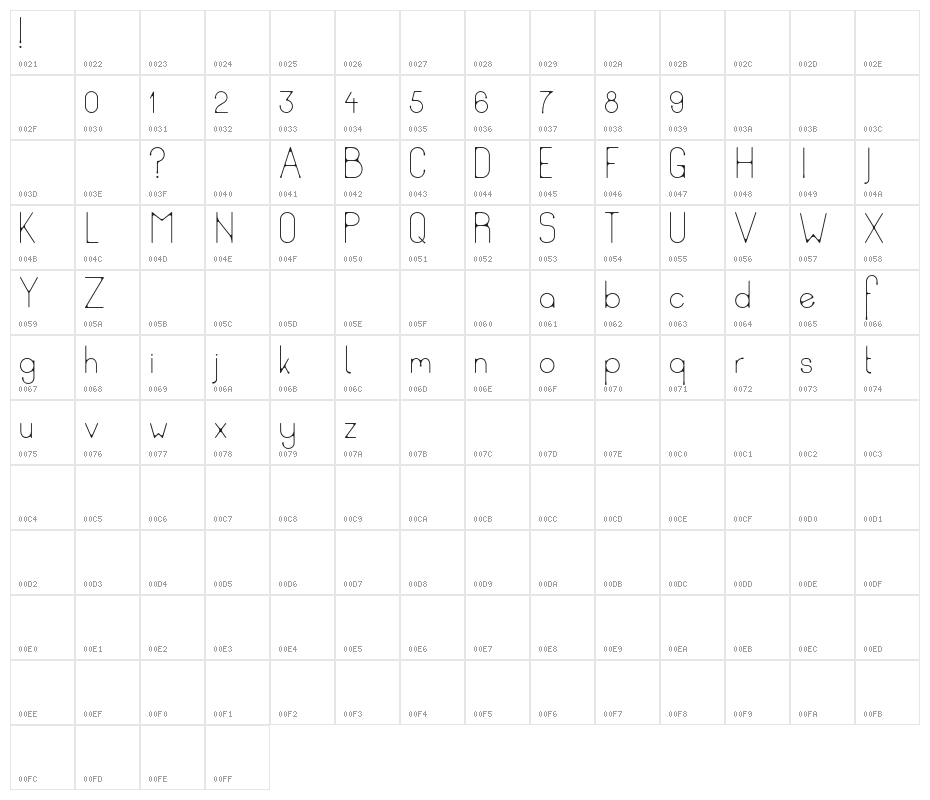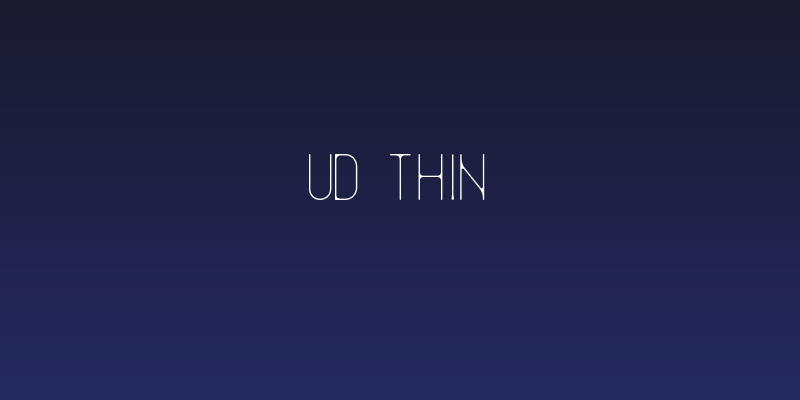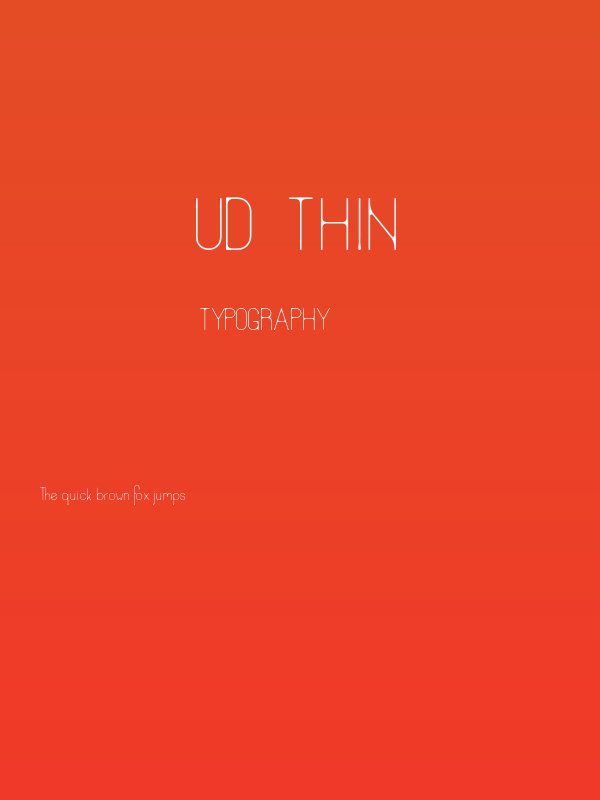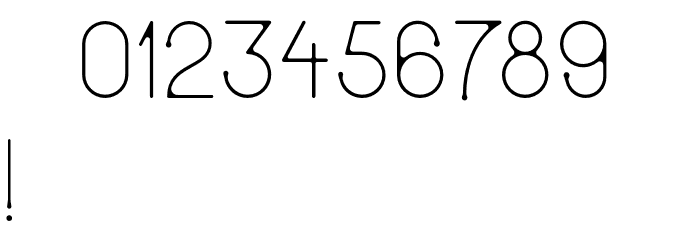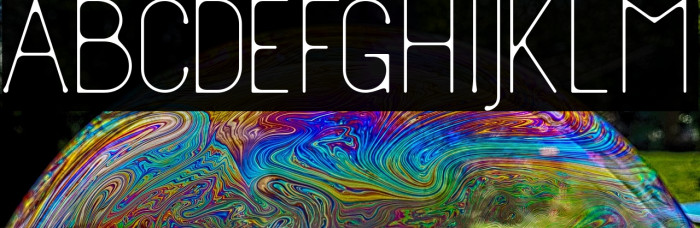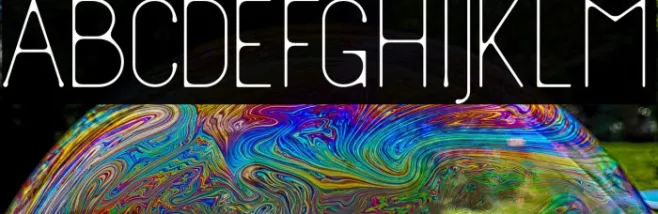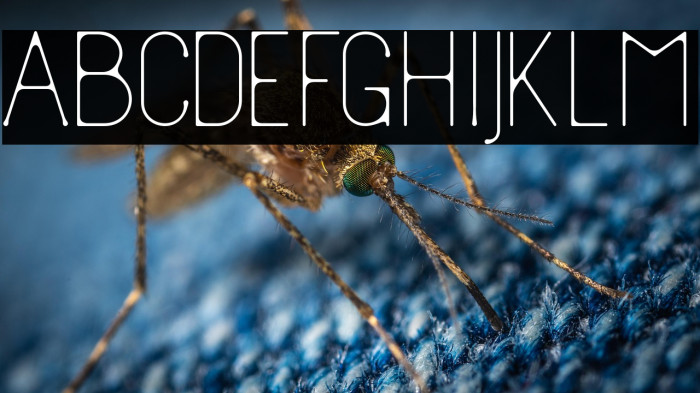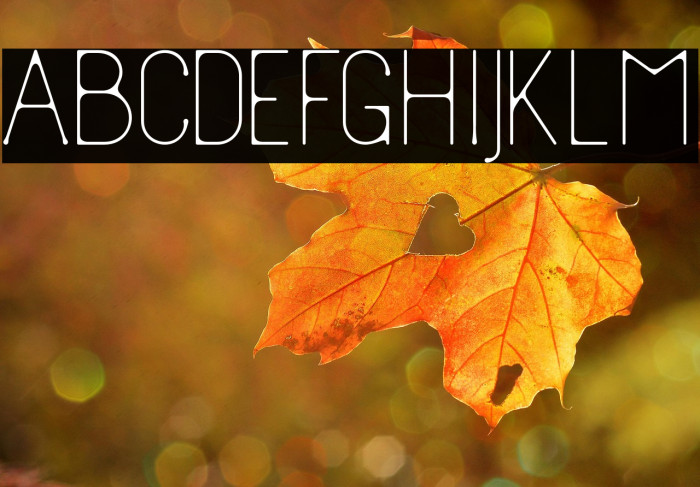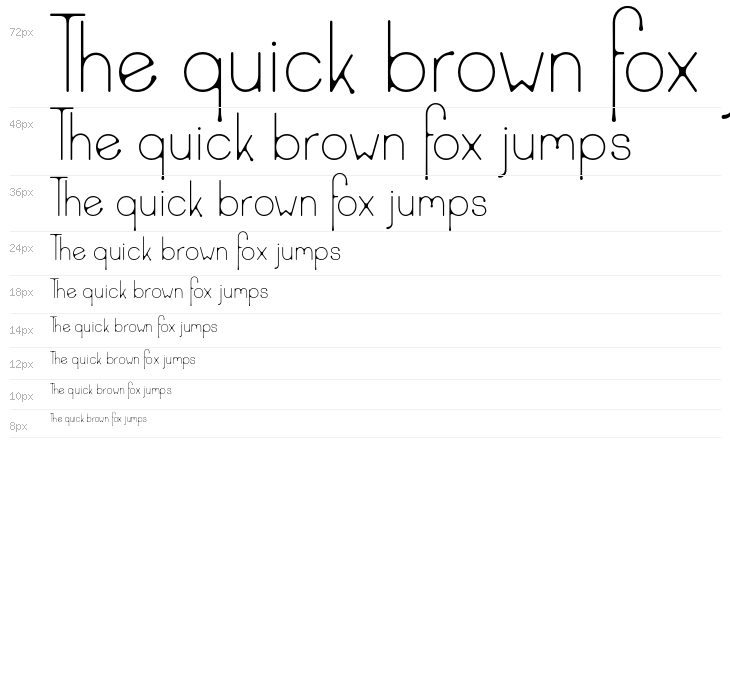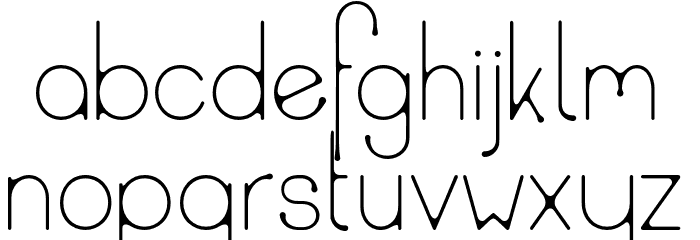
Ud-Thin Font
Ud-Thin Description
This font features a minimalist and modern design with thin, elongated strokes that give it a sleek and elegant appearance. The characters are uniformly narrow, contributing to a condensed look that maintains readability. The uppercase letters exhibit a geometric structure, while the lowercase letters have a more rounded and fluid form. The numerals are consistent with the overall style, maintaining the thin and elongated aesthetic. The font's clean lines and simplicity make it versatile for various design applications, offering a contemporary feel that is both stylish and functional.
| Proposed Projects | Ideal for modern branding, minimalist posters, sleek website headers, and contemporary product packaging. |